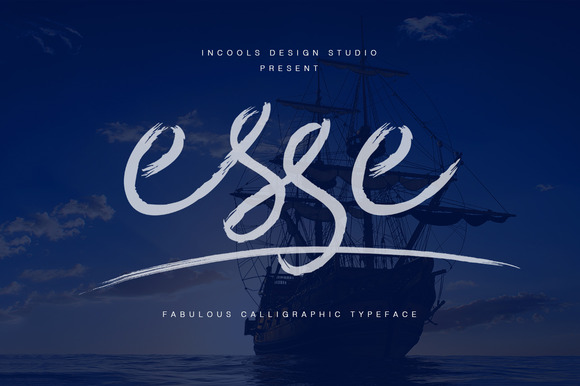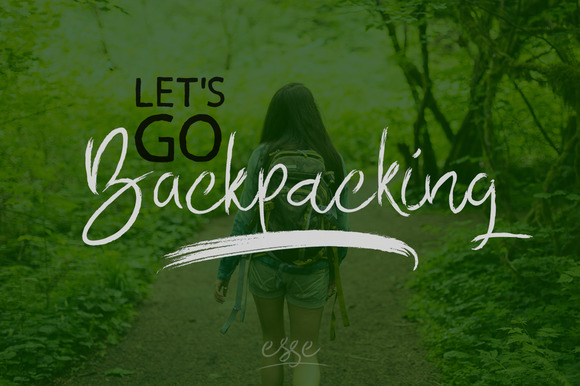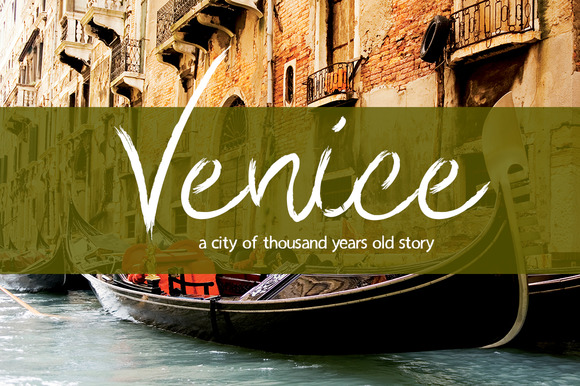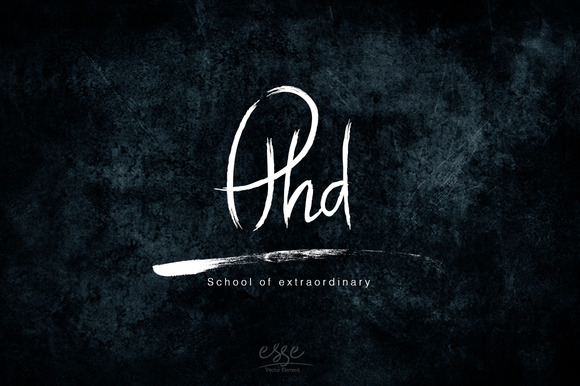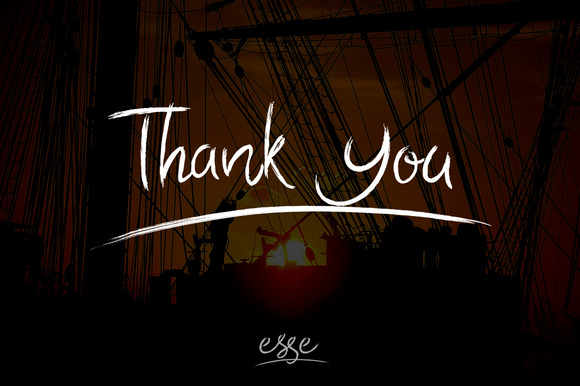
HomeScript FontsEsse Font Script Fonts Esse Font FacebookXPinterestWhatsApp Esse Font Poster 2 Esse Font Poster 3 Esse Font Poster 4 Esse Font Poster 5 About Esse Font Esse is a brush-painted font which draws it inspiration from travel. DOWNLOAD ON CREATIVE FABRICAThis font is sold and delivered by Creative Fabrica. Font Canyon may earn a commission if you buy through this link. People also explored Wavaca Font Magifera Font Eastgood Font Elvitha Font Omnipop Bintang Signature Font Rosnila Butterfly Monogram Font Aspena Font 285 0 TagsEsse Font Previous articleBadegan Calligraphy FontNext articlePromenades Font LEAVE A REPLY Cancel reply Comment: Please enter your comment! Name:* Please enter your name here Email:* You have entered an incorrect email address! Please enter your email address here Website: Save my name, email, and website in this browser for the next time I comment. Personal Use Free Dream Orphans Personal Use Free Read more about this font Budmo Personal Use Free Read more about this font Adriator Personal Use Free Read more about this font The Quick Personal Use Free Read more about this font BLOG Top 7 Google Fonts Alternatives for Faster and Privacy-Friendly Web Design (2025) Top 7 Google Fonts Alternatives for Faster and Privacy-Friendly Web Design (2025) When it comes to web typography, Google Fonts has long been the go-to... Elegant Wedding Invitation Fonts – Handwritten & Script Fonts Best Fonts for YouTube Videos: Make Your Thumbnails Stand Out Exploring Font Trends